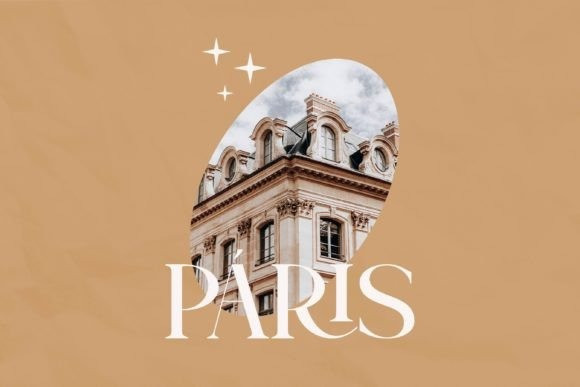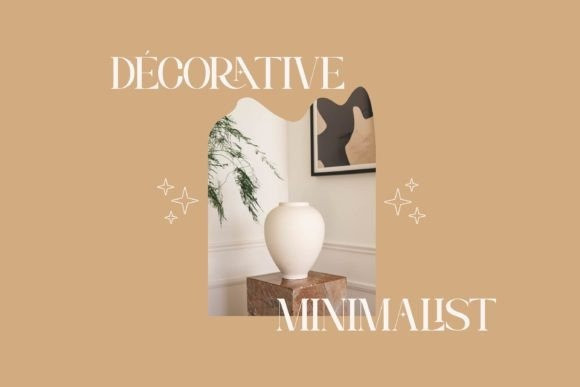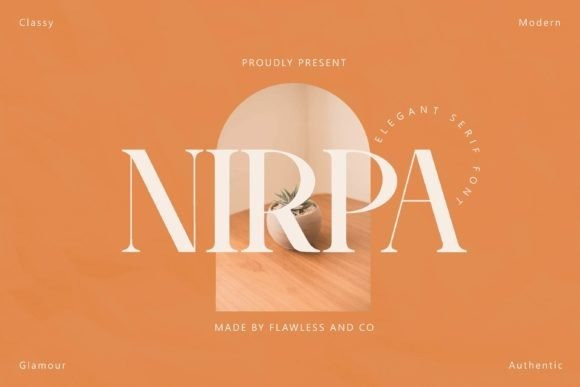
Nirpa Font
Nirpa Font is a modern and elegant serif font. No matter the topic, this font will be an incredible asset to your fonts’ library, as it has the potential to elevate any creation.